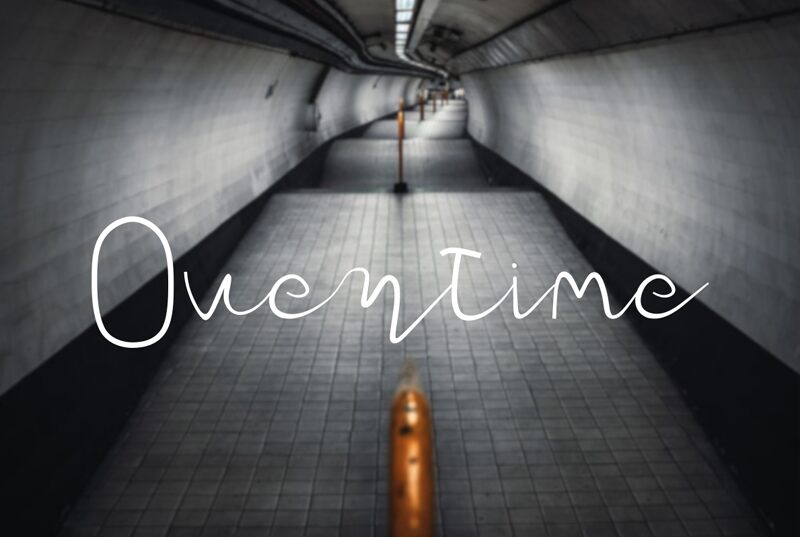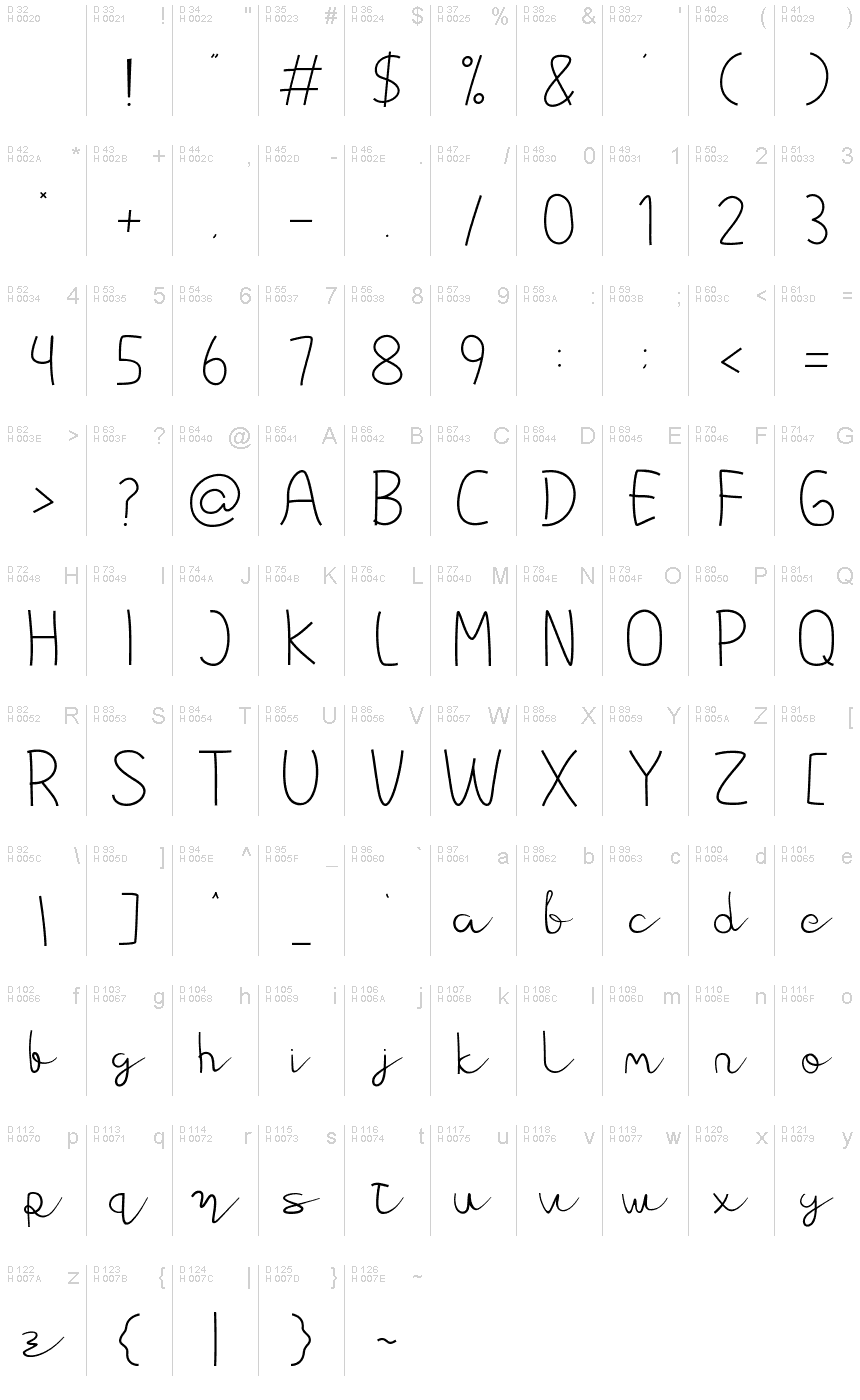
Sawdara
Sawdara is a light handwritten font created by Chandra Chandro. Perfectly crafted for adding a personal touch to your projects, Sawdara can be used to create unique logos, invitations, greeting cards, posters and more. Its playful yet elegant style will elevate any design project while still maintaining an air of sophistication. Let Sawdara bring your vision to life!